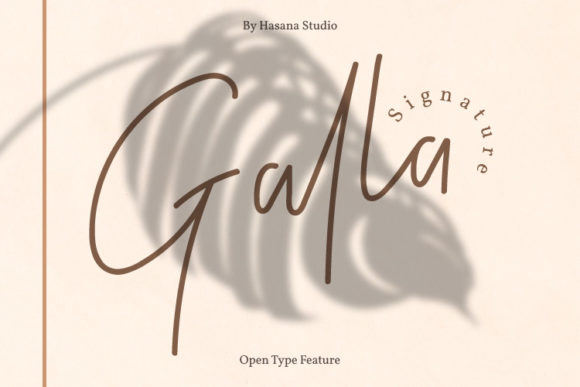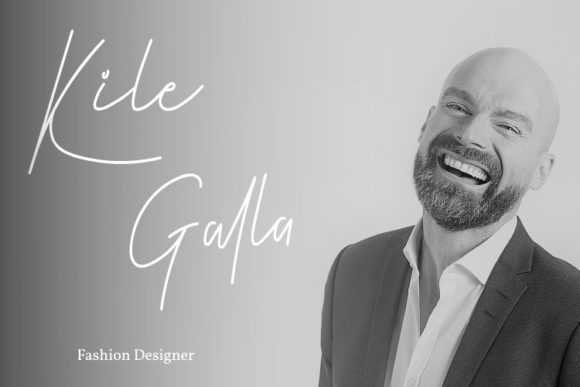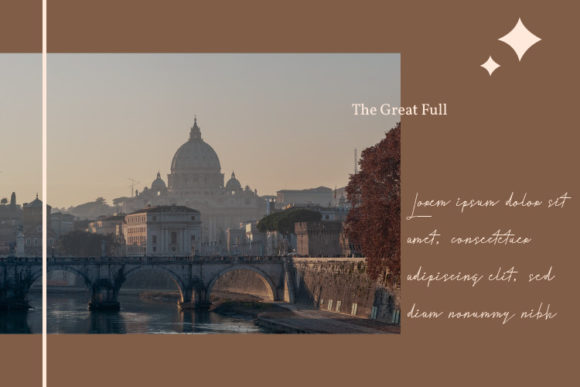
About Galla Signature Font
Galla Signature is a thin lettered, delicate and flowing script font. It looks absolutely gorgeous on wedding invitations, thank you cards, quotes, greeting cards, logos, business cards and every other design which needs a customized touch.